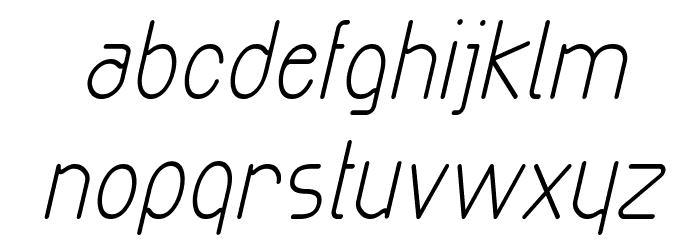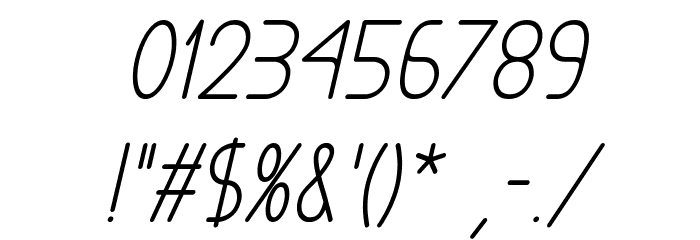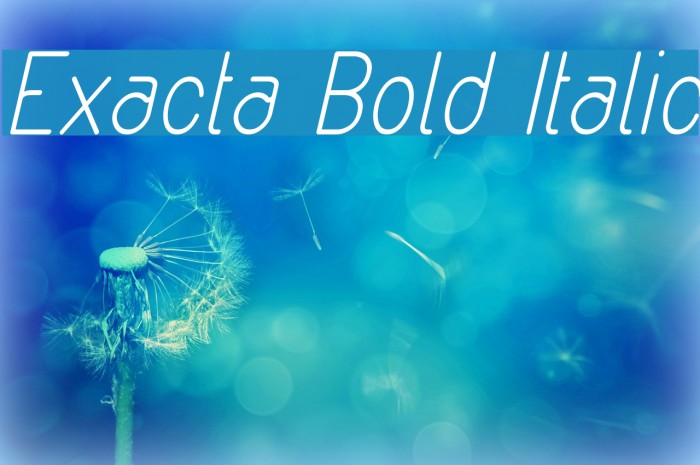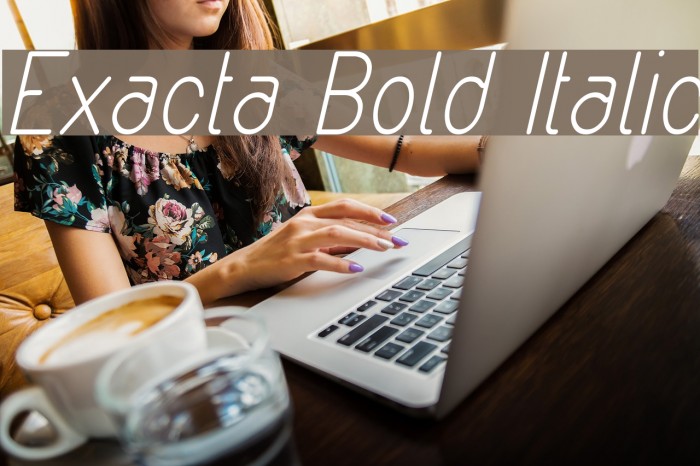
Exacta Bold Italic Font
This font features a sleek, italicized style with a modern and streamlined appearance. The characters are slightly elongated, giving them a dynamic and forward-leaning posture. The strokes are consistent in width, providing a uniform look across all characters. The uppercase letters are tall and narrow, while the lowercase letters maintain a similar proportion, enhancing readability. The numerals are clear and distinct, matching the overall aesthetic of the alphabet. Special characters are well-integrated, maintaining the font's cohesive style. This font's design is both elegant and functional, suitable for various applications.
A modern, italicized font with consistent stroke width and a sleek, dynamic appearance.